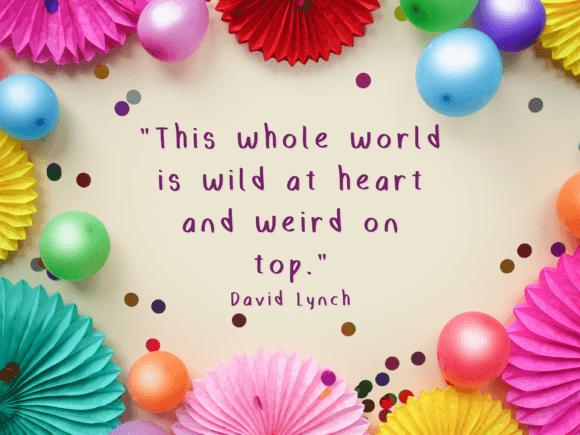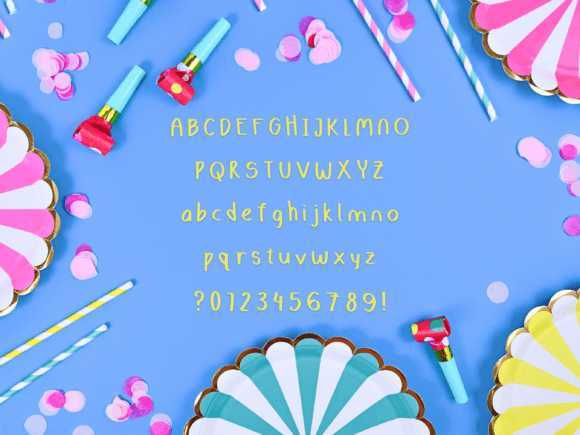
Introducing Caprice Font: Add a Touch of Whimsy to Your Designs
Prepare to dive into the whimsical world of Caprice, a playful handwritten font that’s sure to infuse your designs with a sense of fun and spontaneity! This charming typeface is an essential addition to your toolbox for all things lively and festive. Whether you’re orchestrating an offbeat birthday celebration, crafting cheerful greeting cards, or fashioning attention-grabbing party banners, Caprice lends an atmosphere of jubilation and merriment to your projects.
The Story Behind Caprice Font
Caprice is more than just a font – it’s an experience. Imagine a world where creativity knows no bounds, and the ordinary becomes extraordinary. This font is designed to evoke a sense of playfulness and freedom, making it perfect for designers and crafters who want to add a touch of personality to their work. With Caprice, you can create designs that are as unique as you are.
Key Features of Caprice Font
- Playful Handwritten Style: Caprice boasts a charming, handwritten aesthetic that’s perfect for adding a personal touch to your designs.
- Whimsical and Fun: This font is designed to bring a sense of joy and spontaneity to your projects, making it ideal for festive and lively designs.
- Versatile: Caprice is perfect for a wide range of design applications, from party invitations and greeting cards to social media graphics and more.
- Easy to Read: Despite its playful nature, Caprice is surprisingly easy to read, making it perfect for both headlines and body text.
Use Cases for Caprice Font
So, what can you create with Caprice? The possibilities are endless! Here are a few ideas to get you started:
- Party Invitations: Create eye-catching invitations for birthdays, baby showers, and other celebrations that will set the tone for a fun and festive event.
- Greeting Cards: Add a personal touch to your greeting cards with Caprice, making them perfect for special occasions like holidays, weddings, and graduations.
- Social Media Graphics: Use Caprice to create engaging social media graphics that will help you stand out from the crowd and add some personality to your online presence.
- Party Banners: Design attention-grabbing party banners that will make your event unforgettable.
Tips for Using Caprice Font
To get the most out of Caprice, here are a few tips to keep in mind:
- Experiment with Colors: Caprice looks great in a variety of colors, so don’t be afraid to experiment and find the perfect hue for your design.
- Mix and Match: Combine Caprice with other fonts to create a unique and visually appealing design.
- Keep it Simple: Don’t overcomplicate your design – Caprice is perfect for simple, yet effective designs that pack a punch.
| Font Name | Caprice Font |
| Author | Abi Grey |
Caprice is more than just a font – it’s a way to add a touch of whimsy and fun to your designs. With its playful handwritten style, versatility, and ease of use, Caprice is the perfect addition to your toolbox. So why wait? Join the font party and let the festivities begin! Download Caprice today and start creating designs that are as unique and playful as you are.